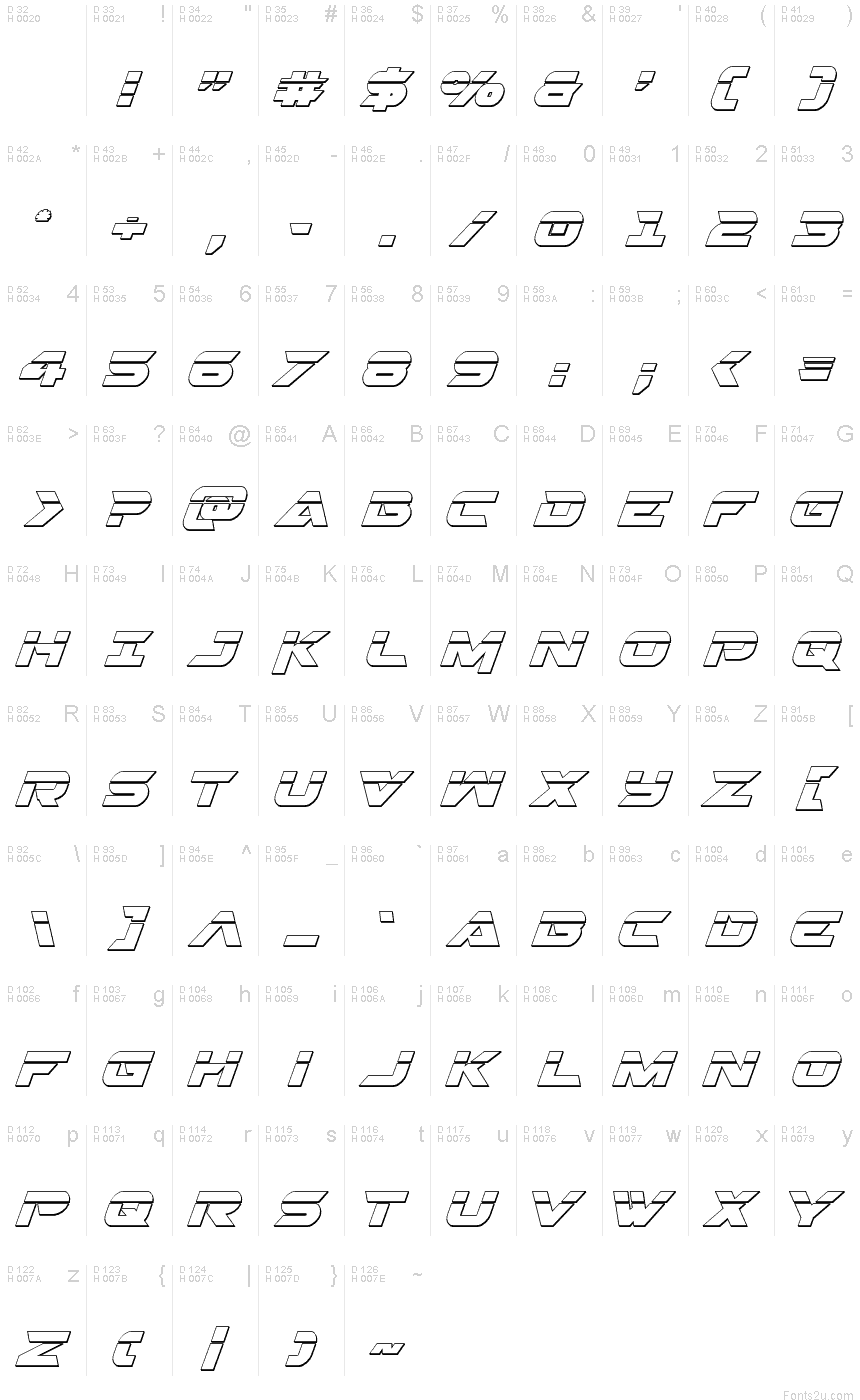
Gemina 2 3D Laser Italic, designed by Iconian Fonts in 2011, is a free futuristic 3D display font with a fast, engineered profile and pronounced forward thrust. Its wide italic letters look cut from stacked metal plates.
The layered facets echo racing stripes and technical panel graphics, a useful connection for motorsport posters, science-fiction packaging, and game title screens. Team merchandise and event branding are equally convincing settings for this treatment, since the clipped corners, deep notches, and raised upper slabs directly support visual themes of speed, armor, and machinery.
Gemina 2 3D Laser Italic